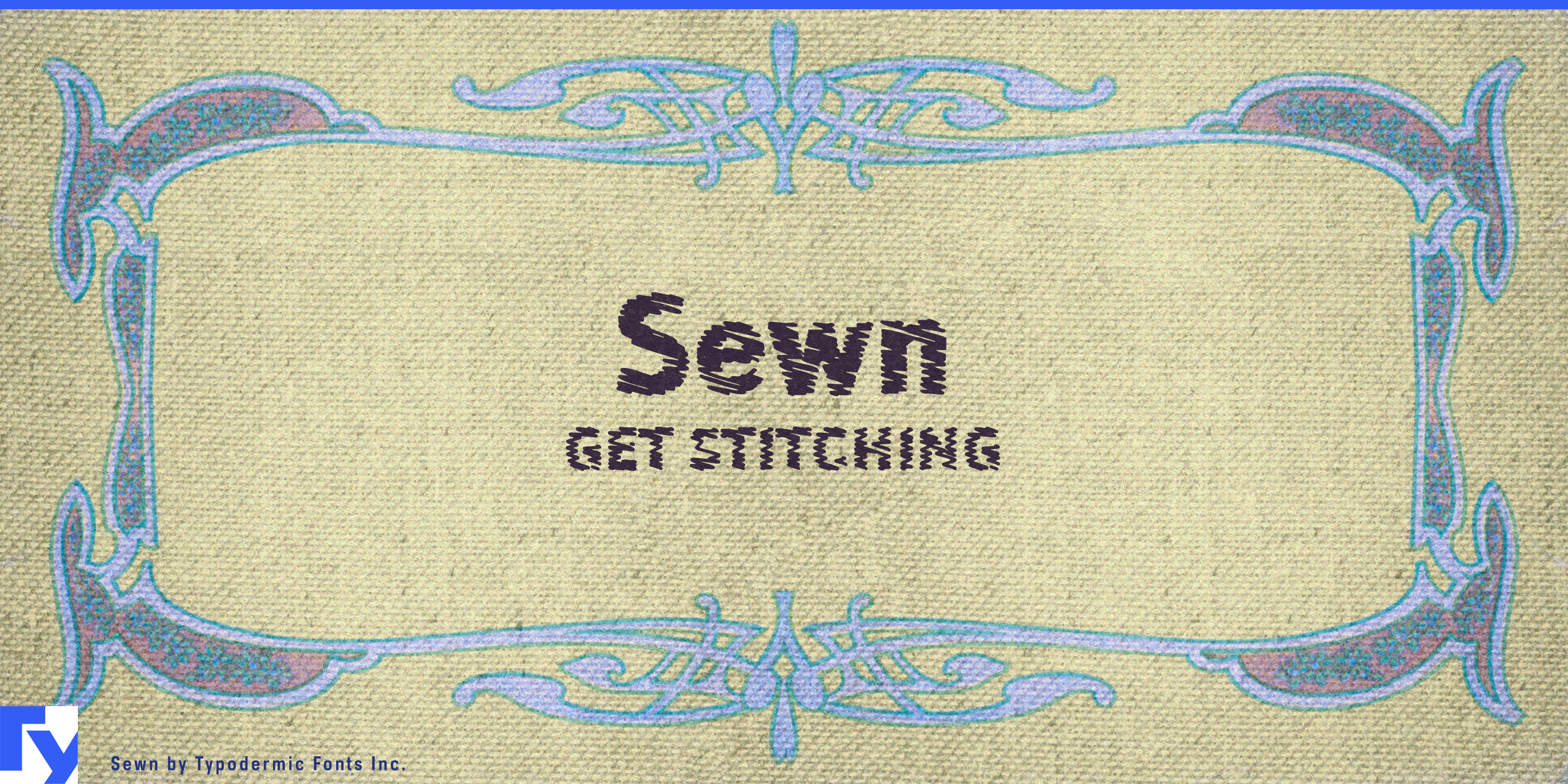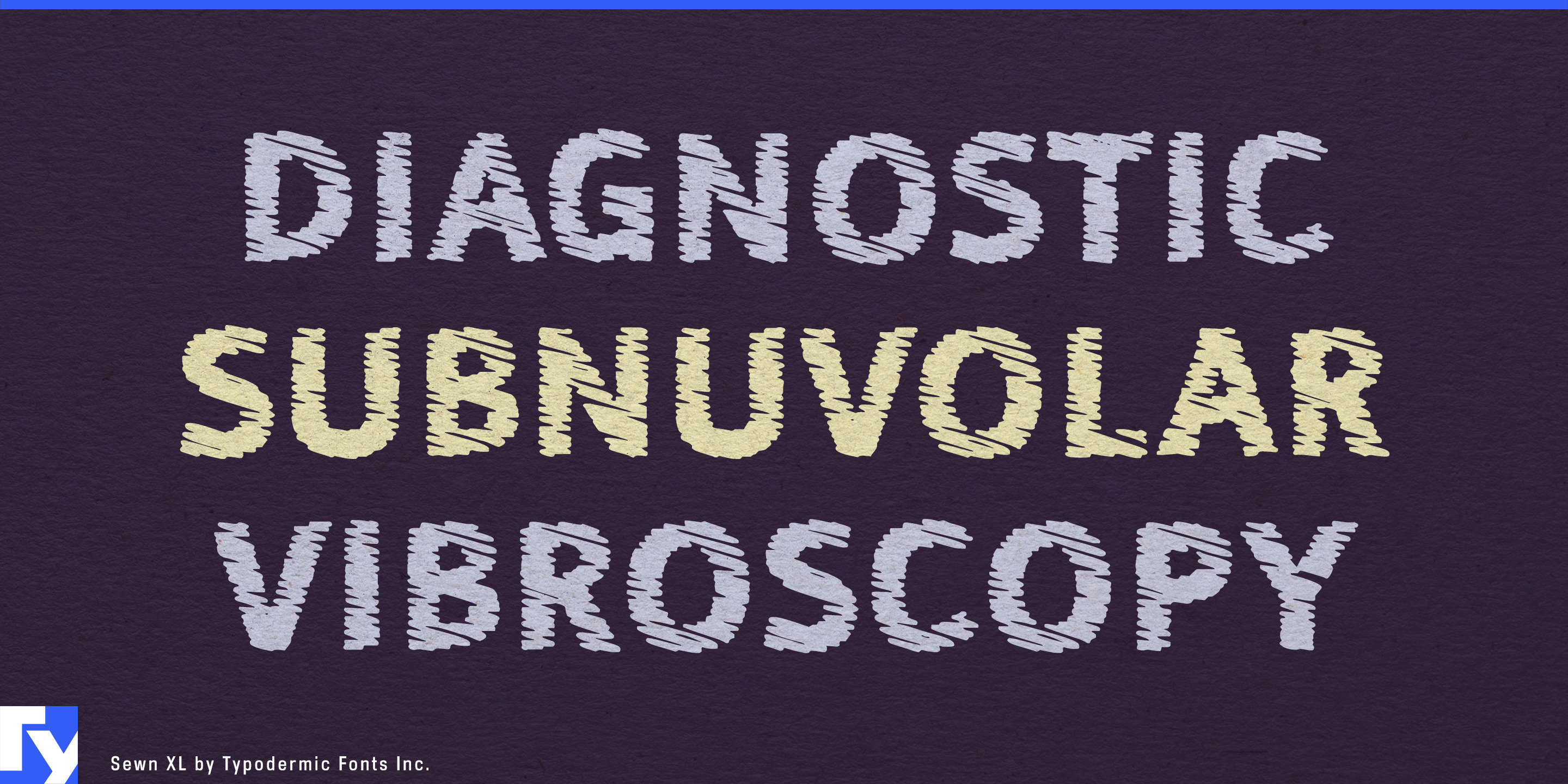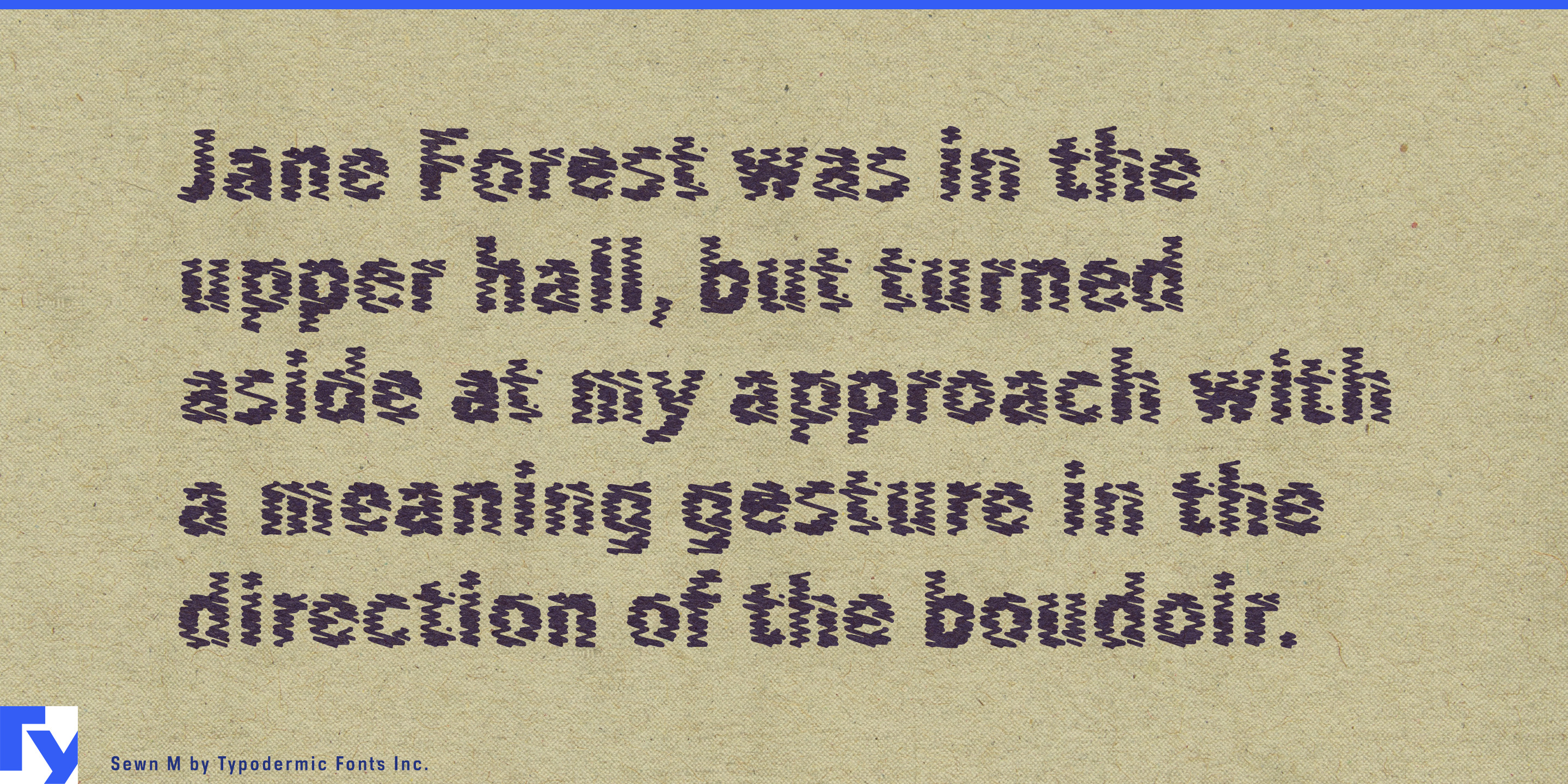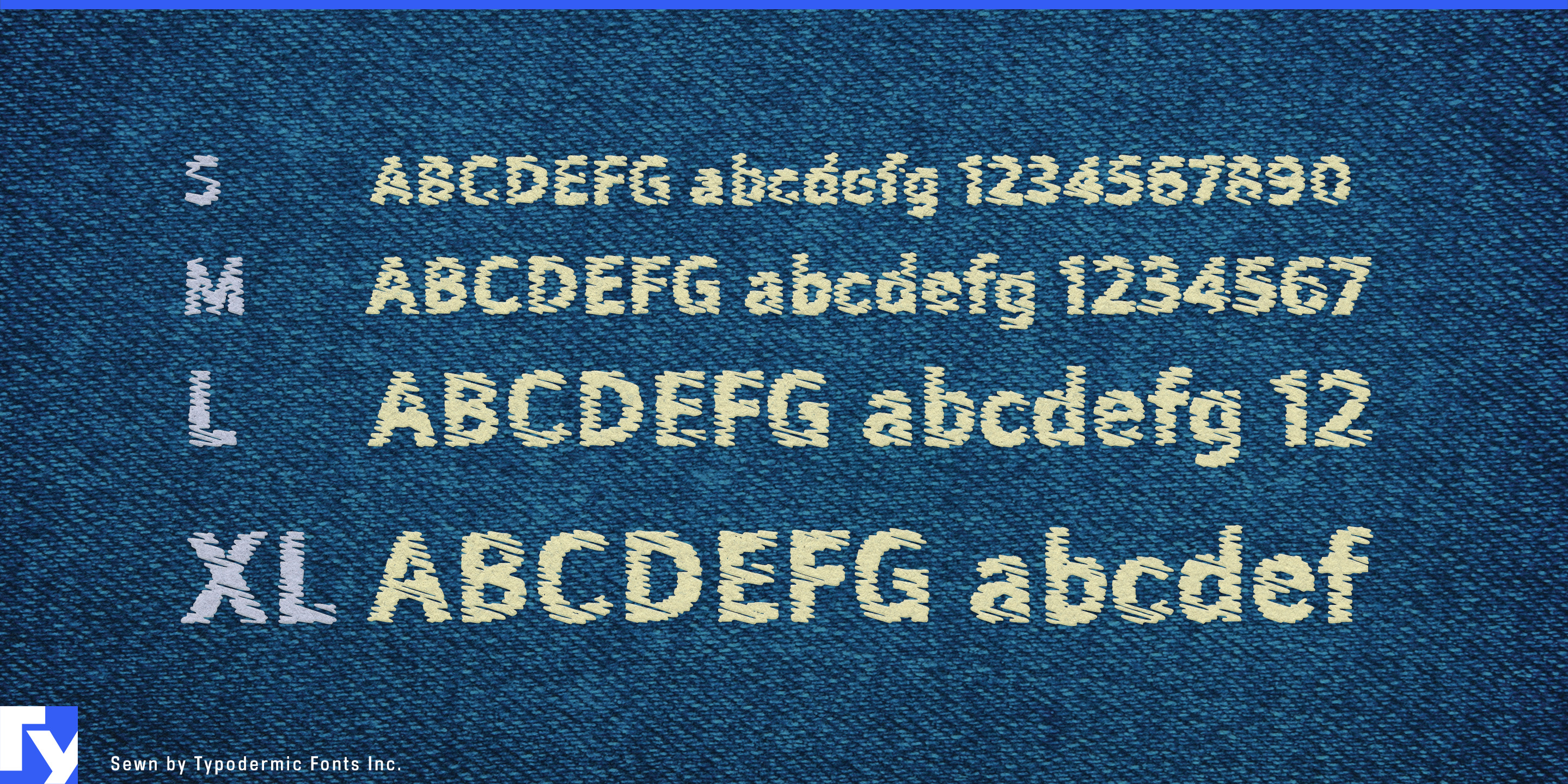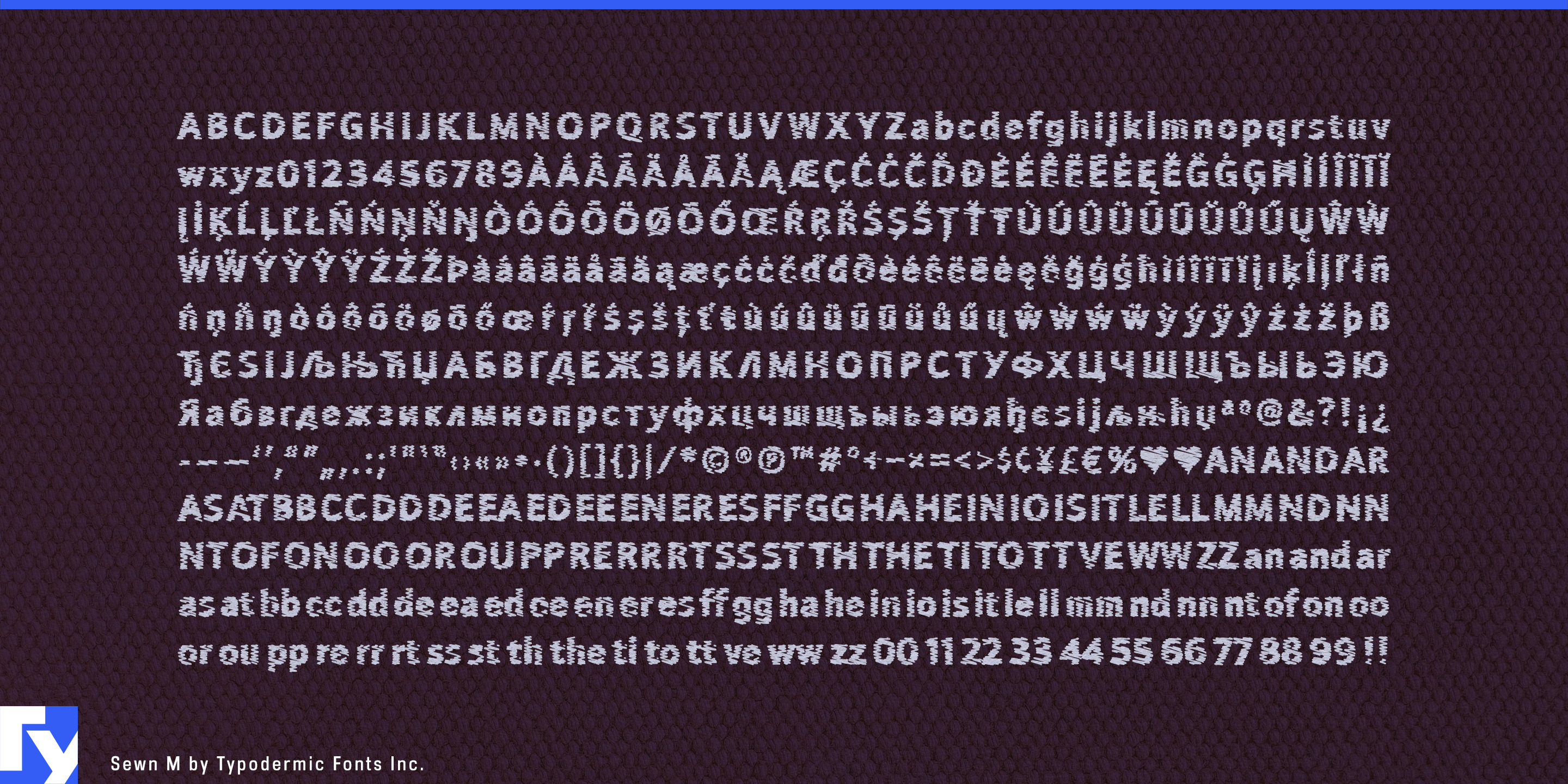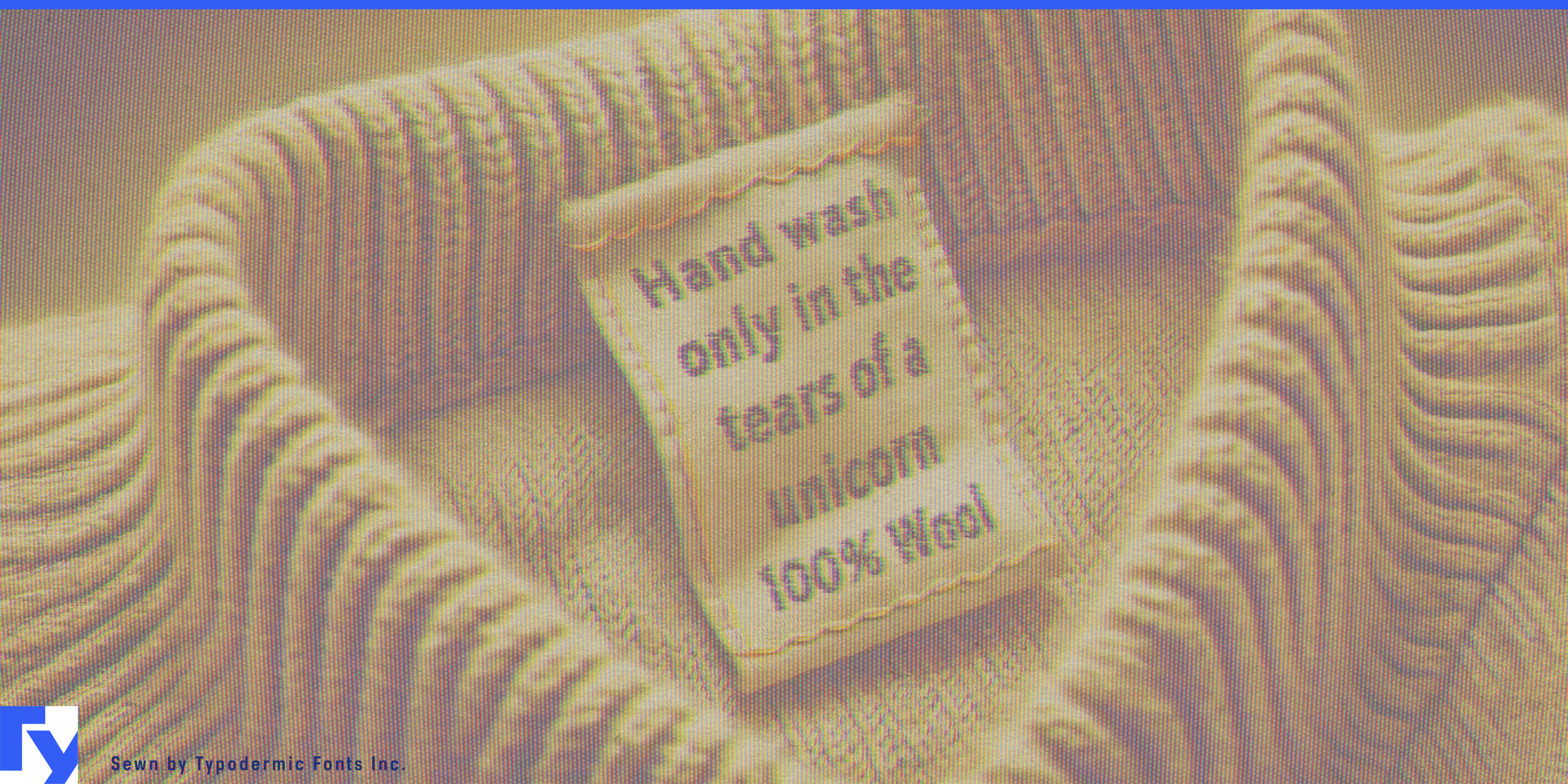
Sewn
Sewn captures the look of genuine machine stitching without a single thread in sight. Every curve and corner is formed from fine, textured lines that mimic real embroidery—tight, even, and full of subtle imperfections that make it feel handmade.
To keep the effect convincing at any size, Sewn includes four scale-specific versions, each adjusting the stitch density so the texture stays crisp whether you’re designing a tiny clothing label or a bold shopfront sign. Clever ligatures smooth out doubled letters, giving words a more natural, less mechanical flow—like stitches laid down by a steady hand.
Perfect for sewing and craft branding, fabric store signage, DIY packaging, or editorial spreads on textiles, Sewn delivers a stitched look instantly, without the hoop, needle, or spool. It’s a specialized display typeface that does one thing very well—making your design look like it was sewn with care.